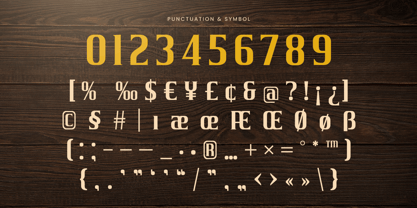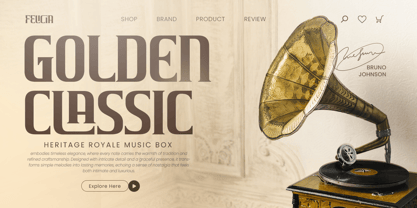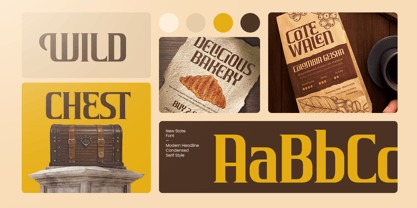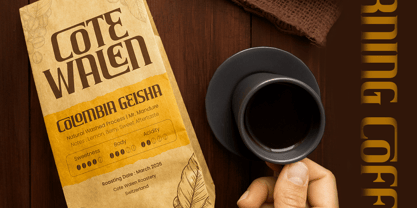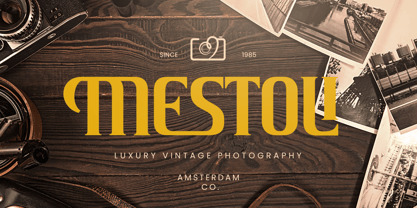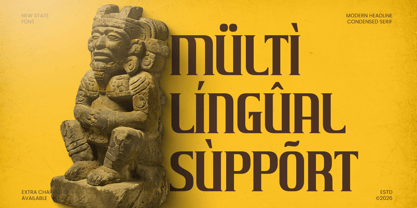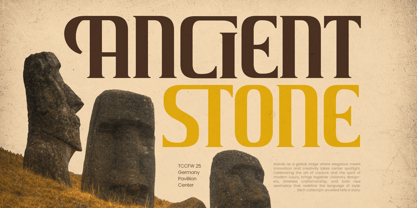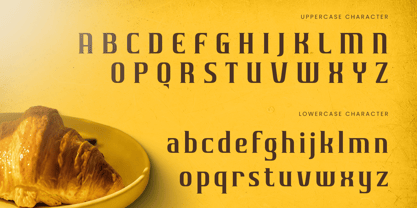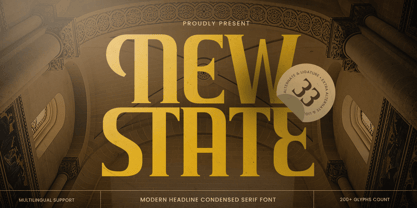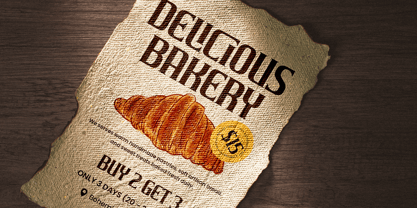
New States
The New States Font Family was designed by Zamroni Hamzah and published by Sensatype Studio. New States contains 1 styles. More about this family
NEW STATE is a modern headline condensed classic serif font crafted to deliver timeless elegance with strong editorial presence. With refined serif details, tall condensed proportions, and a polished visual rhythm, this typeface creates a premium tone that feels sophisticated, confident, and instantly eye-catching.
Built for headline-focused typography, NEW STATE works beautifully across magazine covers, editorial layouts, logos, wordmarks, website headers, posters, packaging, labels, presentations, and upscale marketing visuals. Its condensed structure helps maximize space while keeping every composition sharp, stylish, and highly readable across both digital and print design.
Whether you’re building a fashion identity, designing premium editorial spreads, creating elegant product packaging, or crafting bold brand headlines, NEW STATE provides a classic serif foundation with modern condensed impact that makes your typography feel polished, timeless, and unforgettable.
Inspiration Behind NEW STATE
NEW STATE is inspired by classic newspaper and editorial typography reimagined through a modern luxury lens—where condensed proportions, refined serif contrast, and structured elegance create a commanding visual voice. The design focuses on bold hierarchy and timeless sophistication to support premium branding and high-impact headline design.
NEW STATE Font Features:
• Modern condensed serif letterforms with classic editorial character
• Perfect for headlines, logos, and premium branding systems
• Tall refined structure for strong hierarchy and space-saving layouts
• High readability for magazine covers, posters, and editorial design
• Uppercase, lowercase, numerals, and punctuation included
• OpenType features for polished professional typesetting
Perfect For
• Editorial headlines, magazine covers, and title typography
• Logos, wordmarks, and premium brand identity systems
• Fashion branding, boutique visuals, and upscale campaigns
• Packaging, labels, posters, and elegant promotional layouts
• Social media graphics, websites, presentations, and marketing assets
Multilingual Support
Make every headline stand tall with NEW STATE—a modern condensed classic serif font built for refined editorial impact. ✨